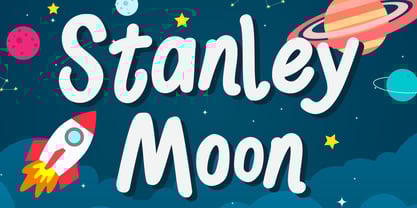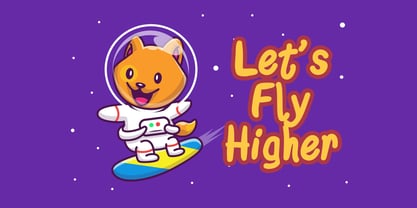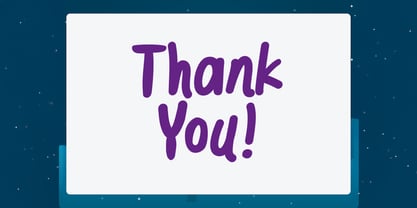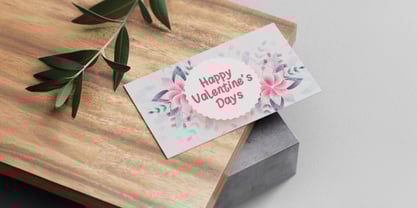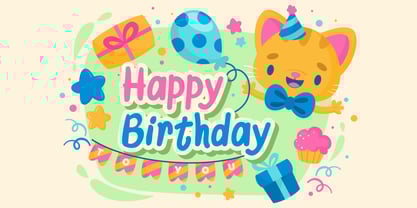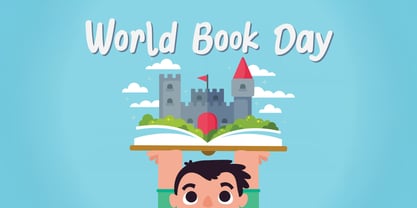
Stanley Moon
by Stringlabs Creative Studio
The Stanley Moon Font Family was designed by Virgiawan Listanto and published by Stringlabs Creative Studio. Stanley Moon contains 1 styles. More about this family
Stanley Moon is a cheerful and quirky display font that sparkles with imagination and personality. With its bouncy shapes, friendly curves, and whimsical vibe, this font is perfect for designs that want to feel fun, lighthearted, and full of charm.
Designers: Virgiawan Listanto
Foundry: Stringlabs Creative Studio